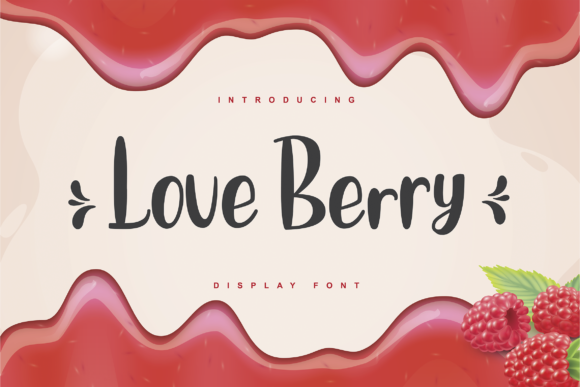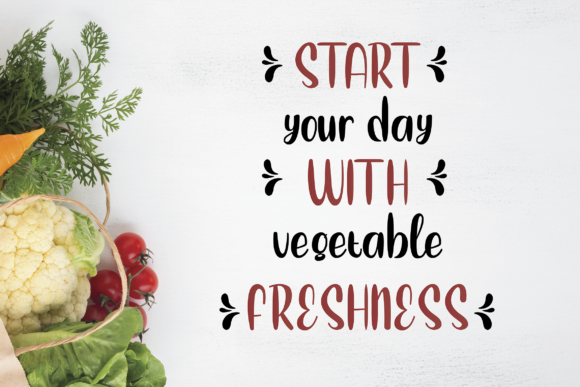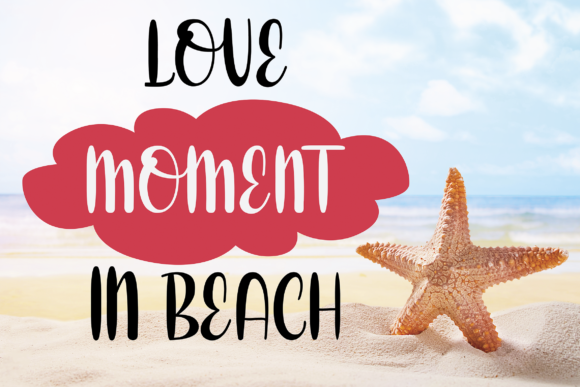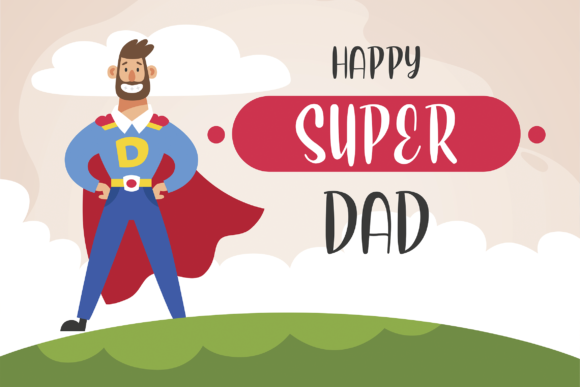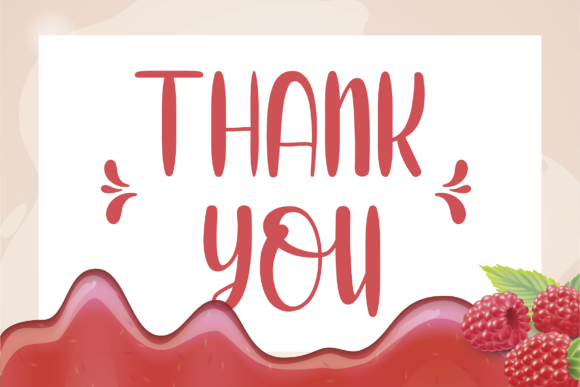
About Love Berry Font
Love Berry is a cute and modern handwritten font. its quirky style as well as its friendly feel make this font particularly adept to a wide pool of contexts. Add it to your creative ideas and notice how it makes them stand out!